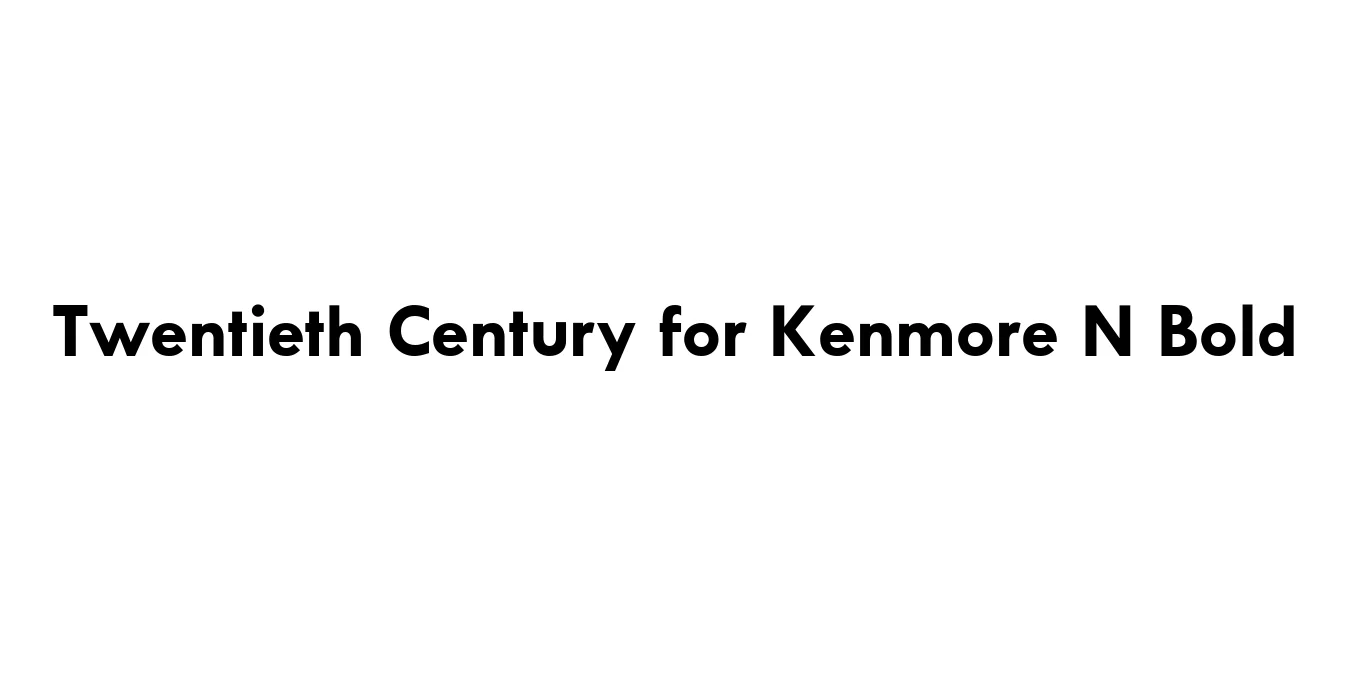
Twentieth Century for Kenmore N Bold
Designed by Sol Hess
Twentieth Century is a classic geometric sans-serif typeface originally designed by Sol Hess between 1937 and 1947 for the Lanston Monotype Machine Company. It was developed as a direct competitor to Paul Renner’s Futura, embodying the clean, functional, and modern aesthetic that dominated mid-century graphic design. The Kenmore N Bold variant is a specific digitization or weight adaptation likely commissioned for brand-specific utility, maintaining the rigorous geometric purity and high-impact presence of the original family.
The design features strictly circular curves and sharp, precise angles, reflecting the industrial efficiency of the machine age. This bold weight is particularly noted for its thick, uniform strokes which provide excellent legibility and a commanding visual authority. It has been used extensively throughout history in everything from corporate identity systems to cinematic titles, remaining a favorite for designers who require a timeless, modernistic feel without the eccentricities of later humanist sans-serifs.
Twentieth Century for Kenmore N Bold Best Uses
Ideal for creating strong, authoritative corporate logos and visual identities.
Perfect for high-impact titles in magazine layouts, posters, and web headers.
Highly legible for environmental graphics and large-scale physical signage.
Effective for grabbing attention in both digital marketing and traditional print media.